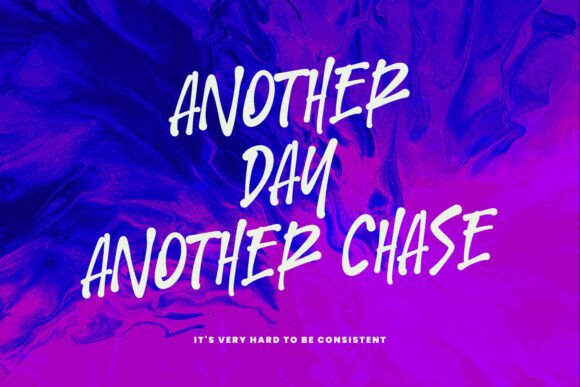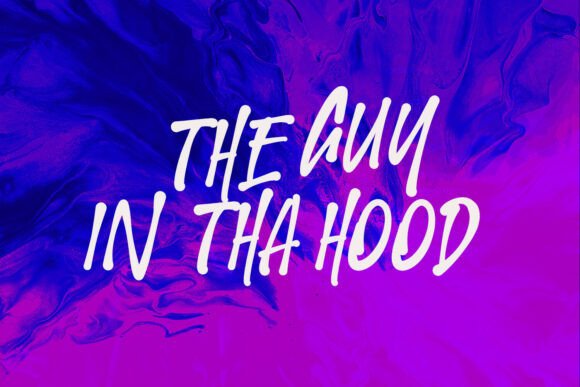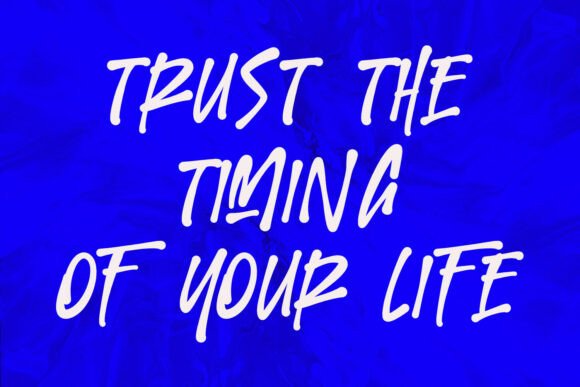
Introduction to Gatimo Fams Font
As a designer, there’s nothing quite like the rush of finding the perfect font for your next project. You know, that moment when everything clicks into place, and your ideas start flowing like water. For me, it was the Gatimo Fams Font that stole the show. Its bold, energetic vibe instantly captured my attention, and I knew I had to learn more.
Hand-painted with authentic brush strokes, the Gatimo Fams Font exudes a raw, street-style aesthetic that’s impossible to ignore. Whether you’re working on a music project, sports branding, or graphic design, this font is sure to make a statement. With its dynamic, semi-slanted letters and varied thickness and texture, the Gatimo Fams Font is the perfect design resource for creatives looking to add an edgy, urban flair to their work.
Not only is the Gatimo Fams Font a high-quality addition to any design project, but it’s also incredibly versatile, with full uppercase characters, numbers, punctuation, and multilingual support. Whether you’re working on a free download or a high-end commercial project, this font is sure to deliver a memorable look that will leave a lasting impression.
Key Features of Gatimo Fams Font
- The Gatimo Fams Font is a high-quality design resource ideal for creative projects requiring a unique and eye-catching font.
- This font family offers a transparent background, making it perfect for overlaying on images or using as a standalone design element.
- The font is designed to be highly scalable, with a resolution of 300 DPI, ensuring crisp and clear text even at larger sizes.
- Gatimo Fams Font is a versatile design resource, suitable for a wide range of creative projects, from digital art to print materials.
- The font family includes a range of styles and weights, providing designers with ample opportunities to experiment and create unique visual effects.
- With its unique characteristics and high-quality design, the Gatimo Fams Font is an excellent addition to any designer’s toolkit.
Honest Review: Gatimo Fams Font
As a designer, I’m always on the lookout for high-quality design resources to elevate my creative projects. Recently, I stumbled upon the Gatimo Fams Font, and I’m excited to share my honest review with you.
- ✨ Unique and playful design style that adds a touch of whimsy to any project
- ✨ High quality and crisp typography that’s perfect for digital designs
- ⚠️ Limited character set, which may not be suitable for longer text-based projects
- ⚠️ Not ideal for printing or high-resolution designs, due to potential pixelation
Overall, the Gatimo Fams Font is a great addition to any designer’s toolkit. While it may have some limitations, its unique design style and high quality make it a valuable resource for creative projects. I highly recommend giving it a try!
Tips for Getting the Most Out of Gatimo Fams Font
For optimal results, pair the Gatimo Fams Font with a matching background or contrasting colors to create a visually appealing design. Experiment with different font sizes and styles to add depth and interest to your creative project.
The Gatimo Fams Font is ideal for various creative projects, including logo design, branding materials, and social media graphics. Its high-quality design makes it perfect for showcasing your brand’s personality and style.